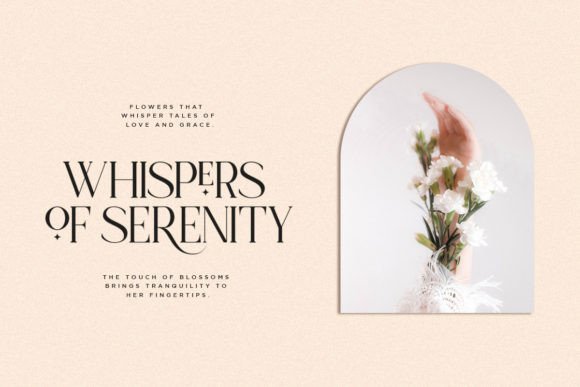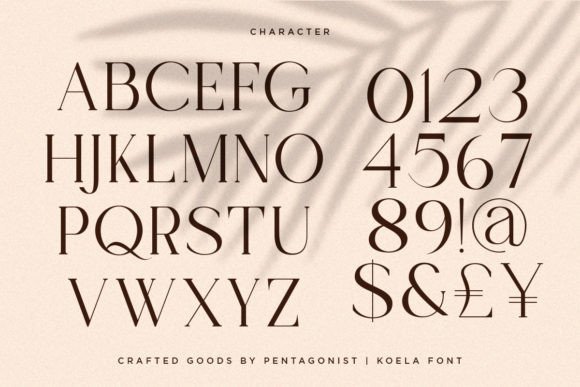
Koela Font
Koela Is A Modern Serif Font with Stylistic Alternates and Ligatures. Modern serif font with exciting variations. Bring a little magic or romance to your work—a fun twist on a classy serif font’s traditional look and feel.